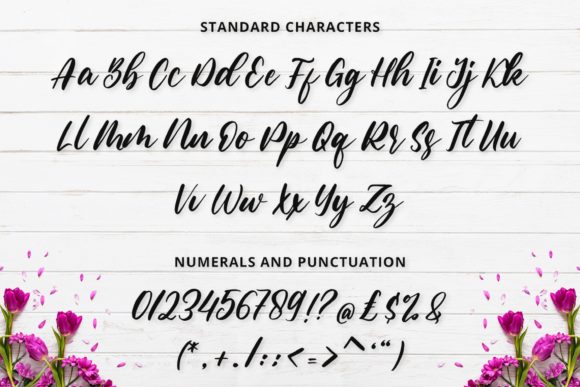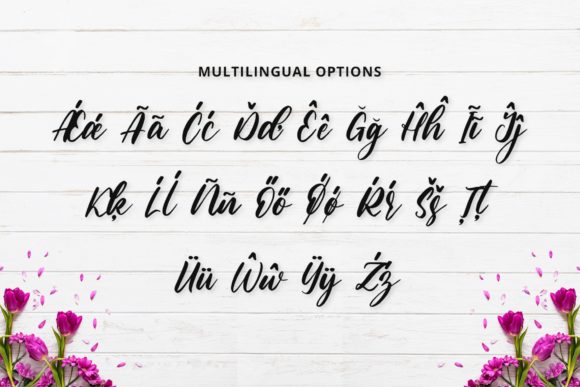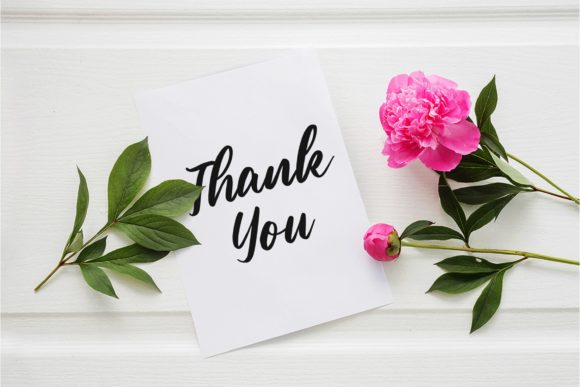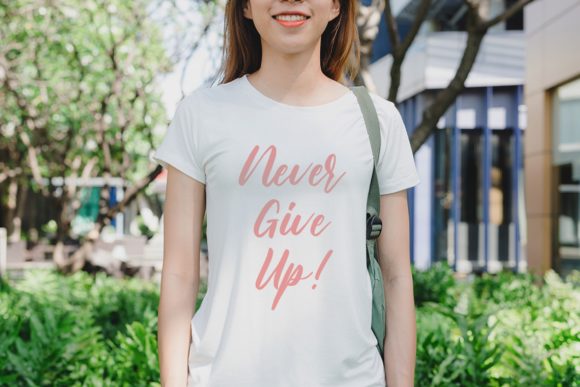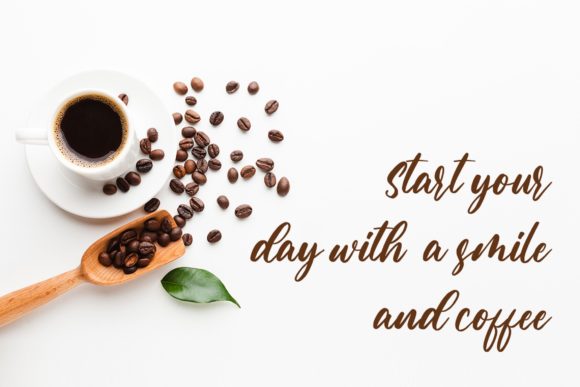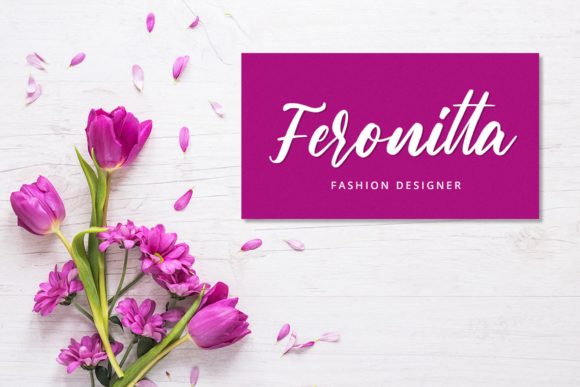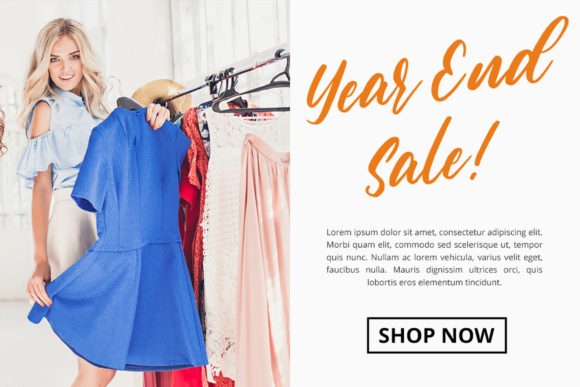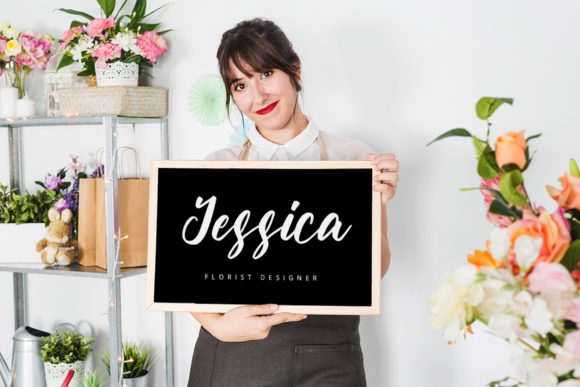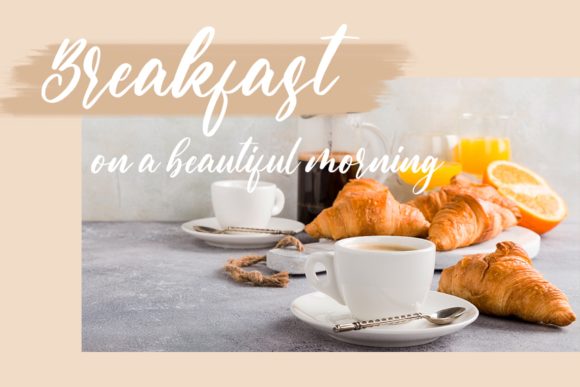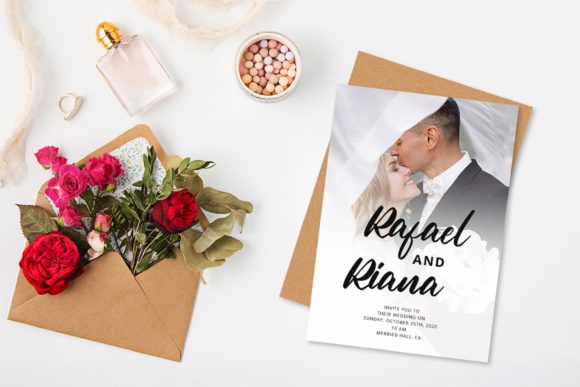
Lavender Font
About Lavender Font
Introducing “Lavender” – a casual and flowing handwritten font that brings a sense of effortless beauty to your designs. With its neat and carefully arranged letters, this typeface shines in both formal and non-formal design contexts, adding a touch of elegance to any project.
Lavender’s gentle curves and smooth strokes create a harmonious and balanced appearance. Its casual yet refined style makes it a versatile choice for a wide range of design applications. Whether you’re creating wedding invitations, branding materials, social media graphics, or any other design project, Lavender will enhance your designs with its effortless charm.
This font’s versatility allows it to adapt to various design moods and atmospheres. Its flowing nature makes it suitable for both formal and non-formal designs, effortlessly adding a touch of sophistication. Embrace Lavender’s beauty and witness how it elevates your designs to new heights.
Embrace the casual and flowing beauty of Lavender, and watch as it transforms your designs into visual masterpieces. Let it be the font that effortlessly adds elegance and charm to your formal and non-formal projects. With Lavender, your designs will captivate and enchant your audience.